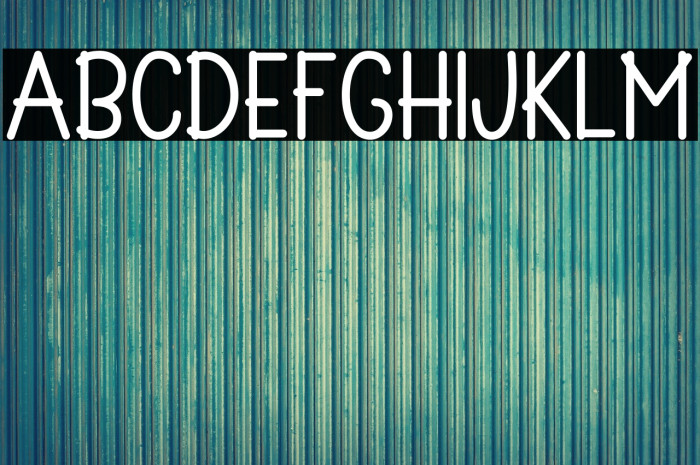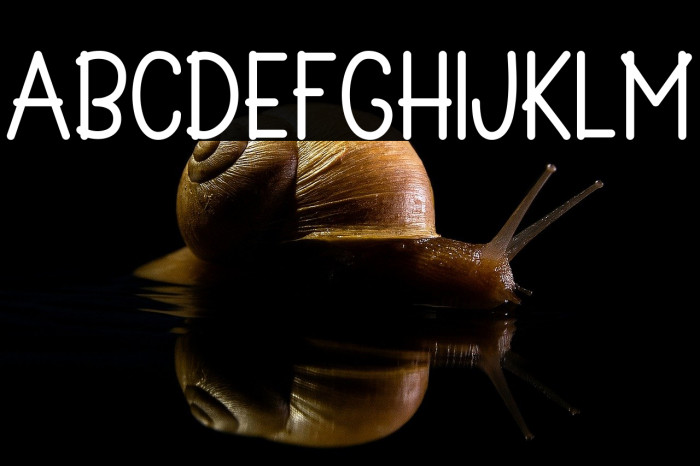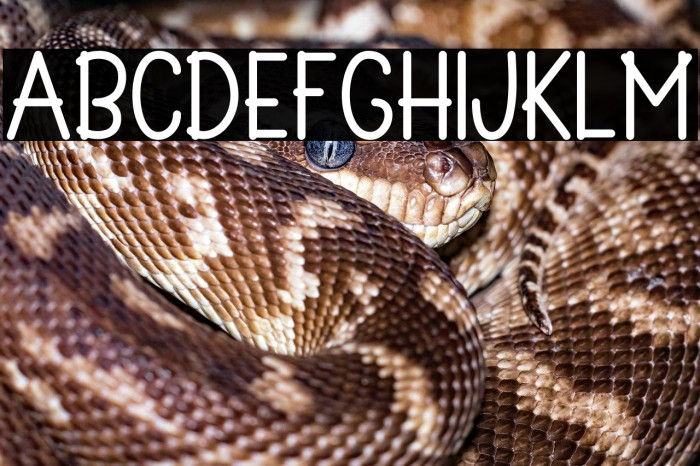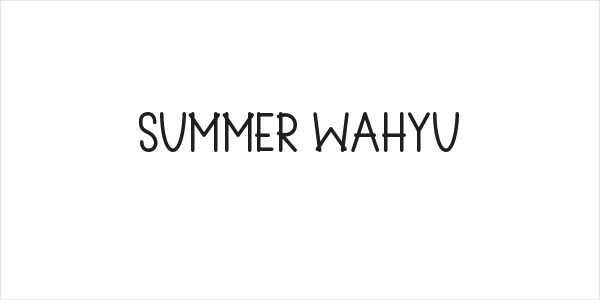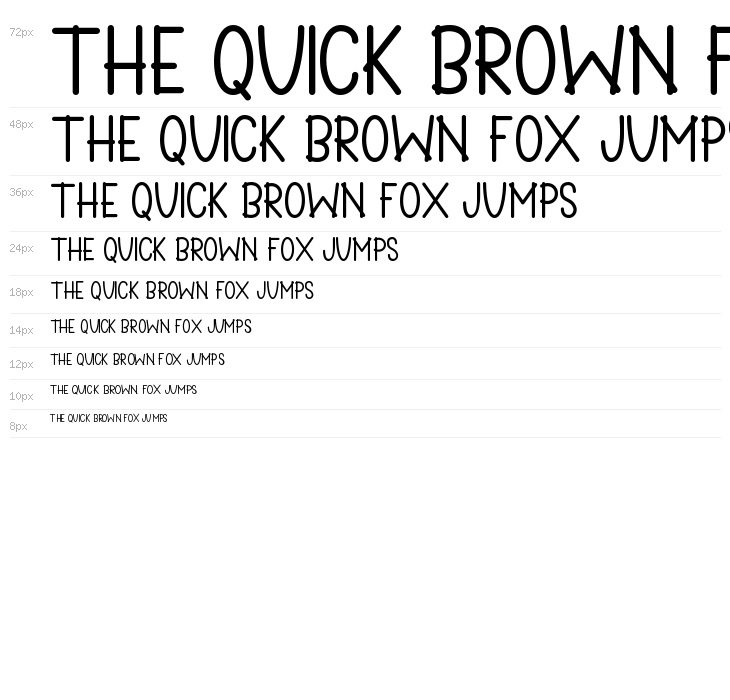
Summer Wahyu Font
Summer Wahyu Description
This font features a playful and casual handwritten style, characterized by its rounded and slightly irregular letterforms. The strokes are consistent in width, giving it a uniform appearance while maintaining a friendly and approachable feel. The uppercase and lowercase letters are distinct, with the uppercase being slightly taller and more prominent. The numerals are clear and easy to read, matching the overall style of the alphabet. Special characters are included, maintaining the same whimsical aesthetic. This font is versatile, suitable for projects that require a personal touch.
| Use Case | Logos, Headlines, Informal Text |
| Proposed Projects | Ideal for greeting cards, children's books, casual branding, and social media graphics. |